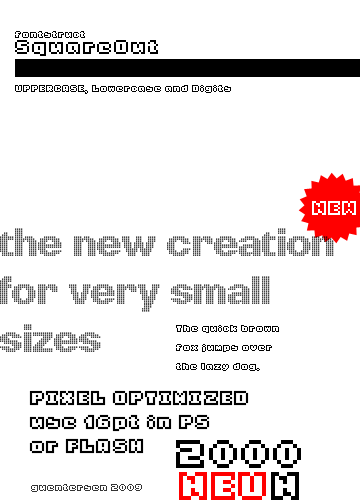
Ha-ha! It's amazing how an outline font with an x-height of 6 pixels outdoes a lot of the supersized-stretchedbricked-beziersimulating- fancydecorated fontstructions (mine included)! :)
Here is a sample (featuring HAUS SC)!
The good old times of C64 revisited, where (almost) all fonts where based on a 7x7 grid ;)
To me it was funny to observe how in this small size any pixel causes a big effect and ought to shape a curve or an edge.
Q, c, s are absolutely brilliant in an already brilliant font. Thank you for the walk down the C64 memory lane.
Also, the ultra clean sample using my #1 favorite fontstruction (Haus SC) is perfection in minimal design layouts.
I have sketches for something like this, but you beat me to it. Nice job, too! Cheers.
Wow, loved this font so much I cloned it and filled it in.I've called it SquareOut Refill.. Check it out!!
7x7 "SquareOut Refill" and 9x9 "SquareOut"…
which fairly fit the 'very small' wording. :-)